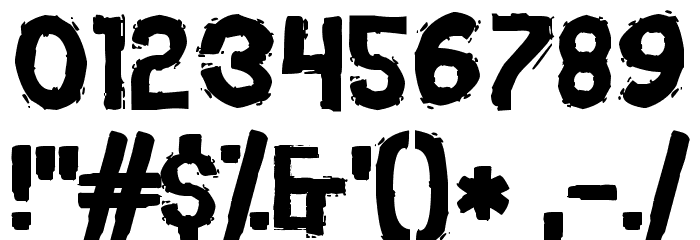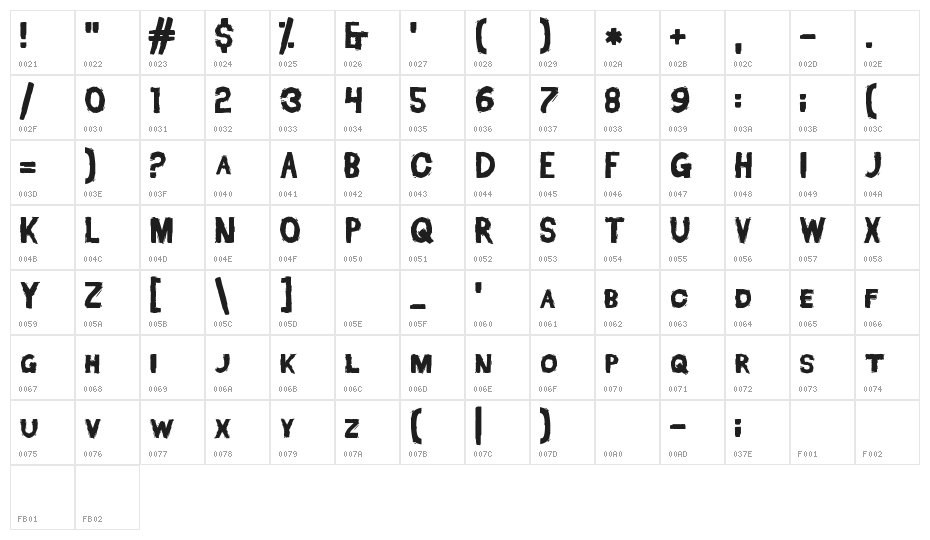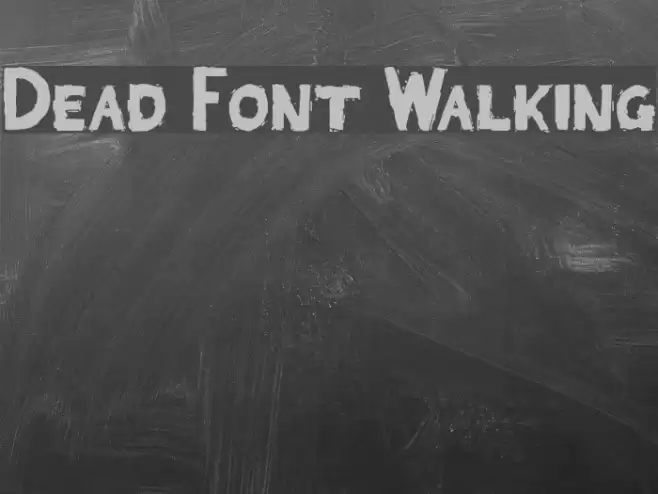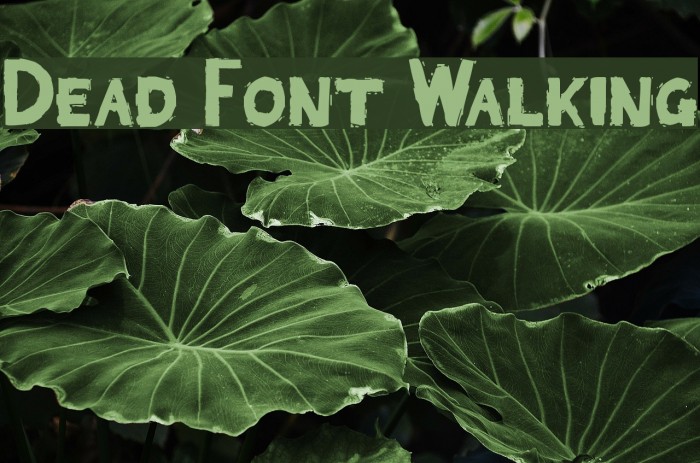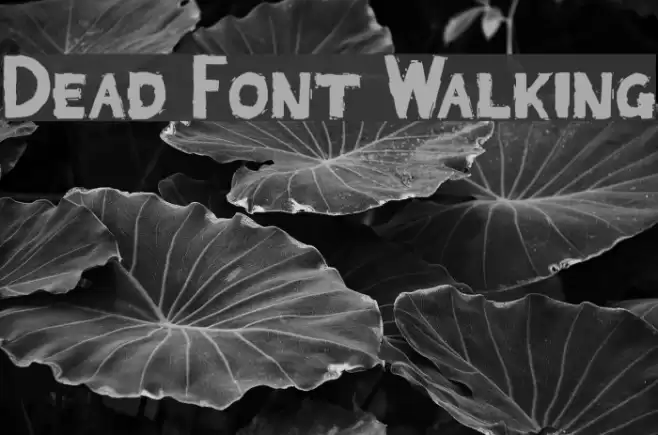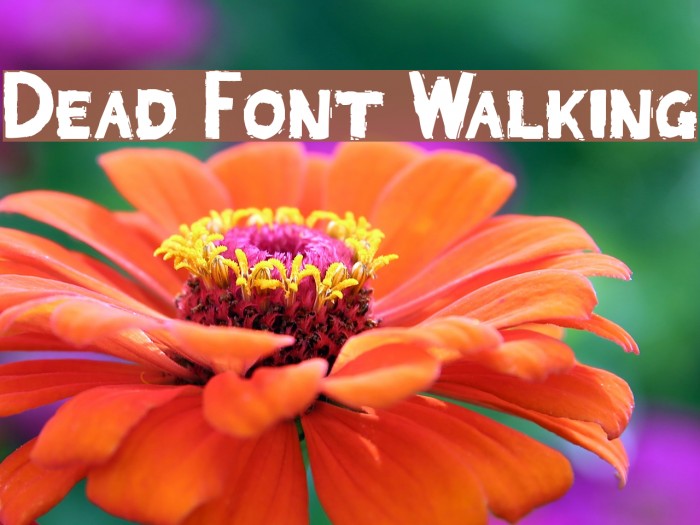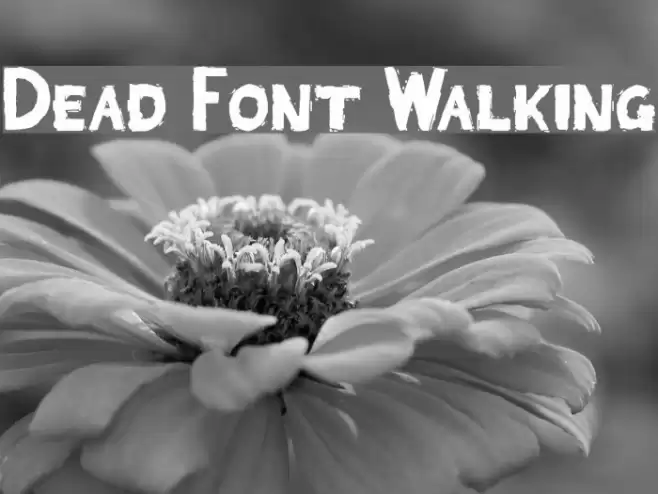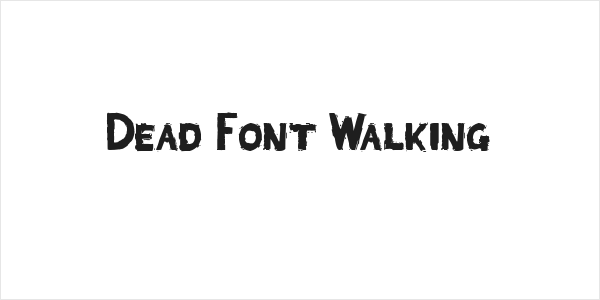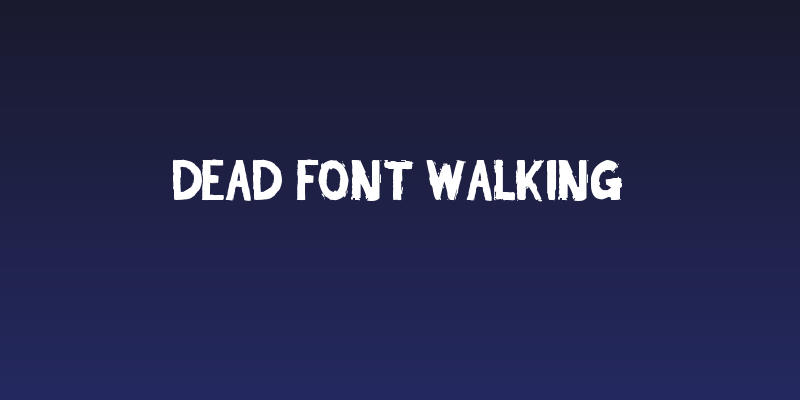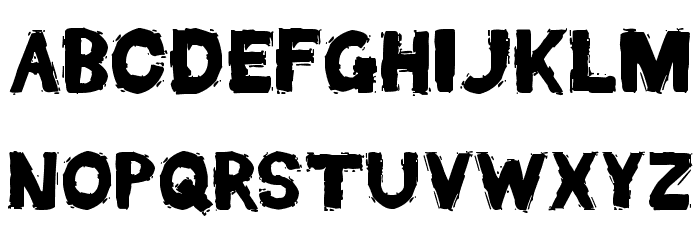
Dead Font Walking Font
Dead Font Walking Description
This font features a bold and distressed style, characterized by its rough, textured edges that give it a worn and rugged appearance. The uppercase and lowercase letters maintain a consistent weight, providing a strong visual impact. The numerals and special characters follow the same distressed aesthetic, ensuring uniformity across all glyphs. This font's unique style is reminiscent of grunge or urban themes, making it ideal for projects that require a bold statement or an edgy look. Its legibility is maintained despite the distressed effect, making it versatile for various design applications.
| Overall Style | Grunge, Urban |
| Proposed Projects | Ideal for posters, album covers, branding for edgy products, or any project needing a grunge or urban aesthetic. |